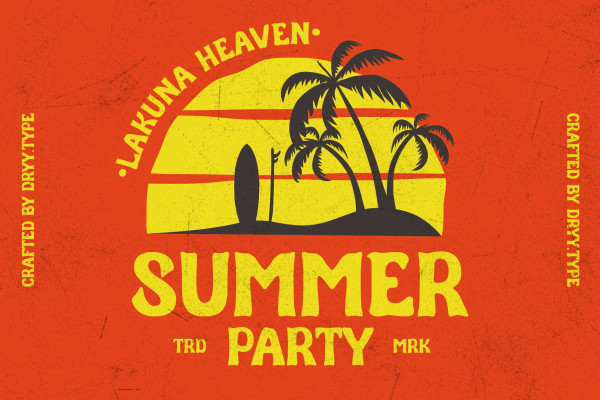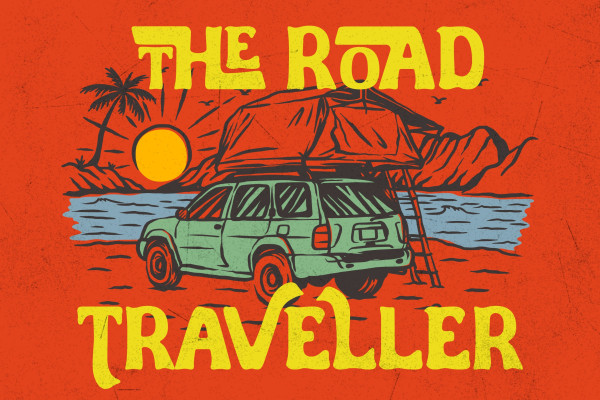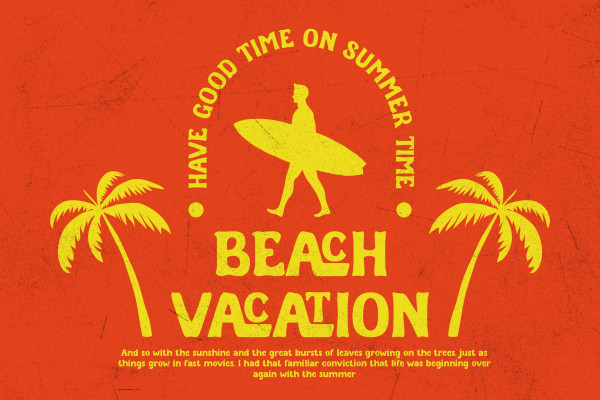
Lakuna Display Font
Lakuna Display Font is a popular choice for adding a retro and nostalgic feel to designs. It is characterized by its hand-drawn style, distressed texture, and decorative elements. Features: uppercase, lowercase, alternates, Ligatures & multilingual There it is! I really hope you enjoy it